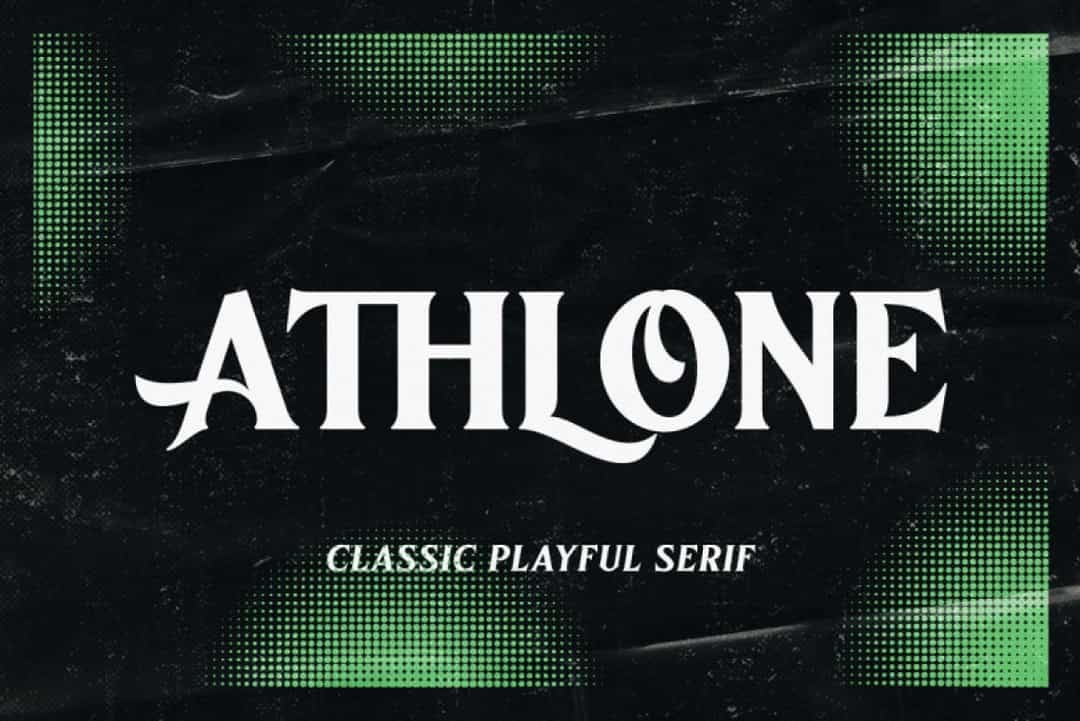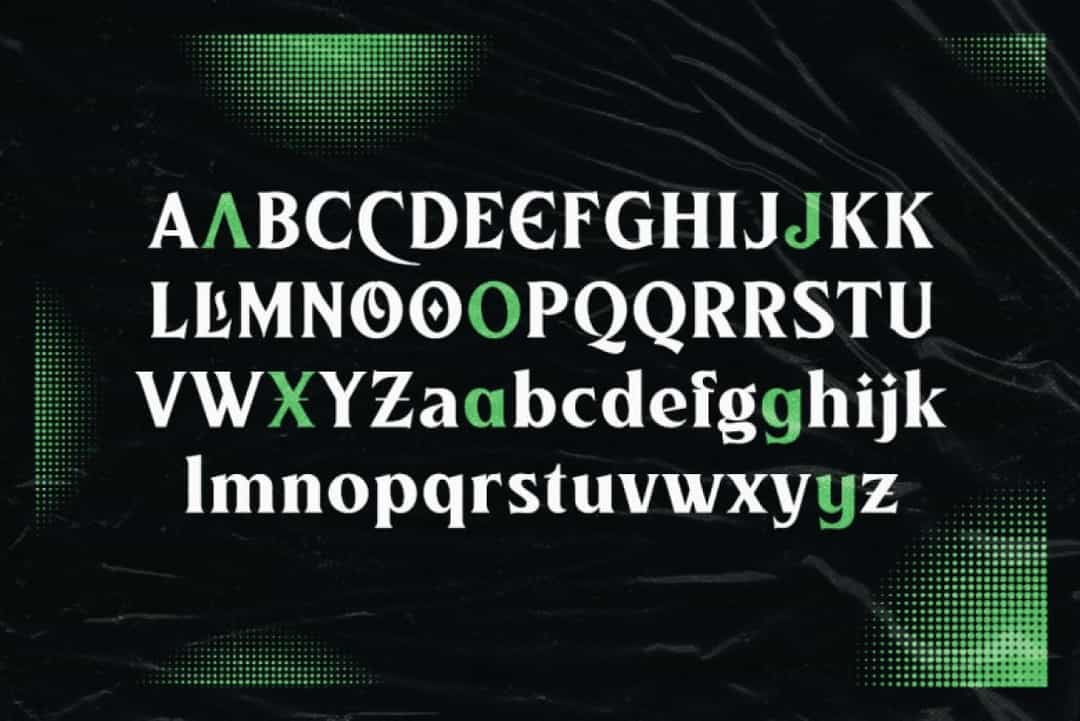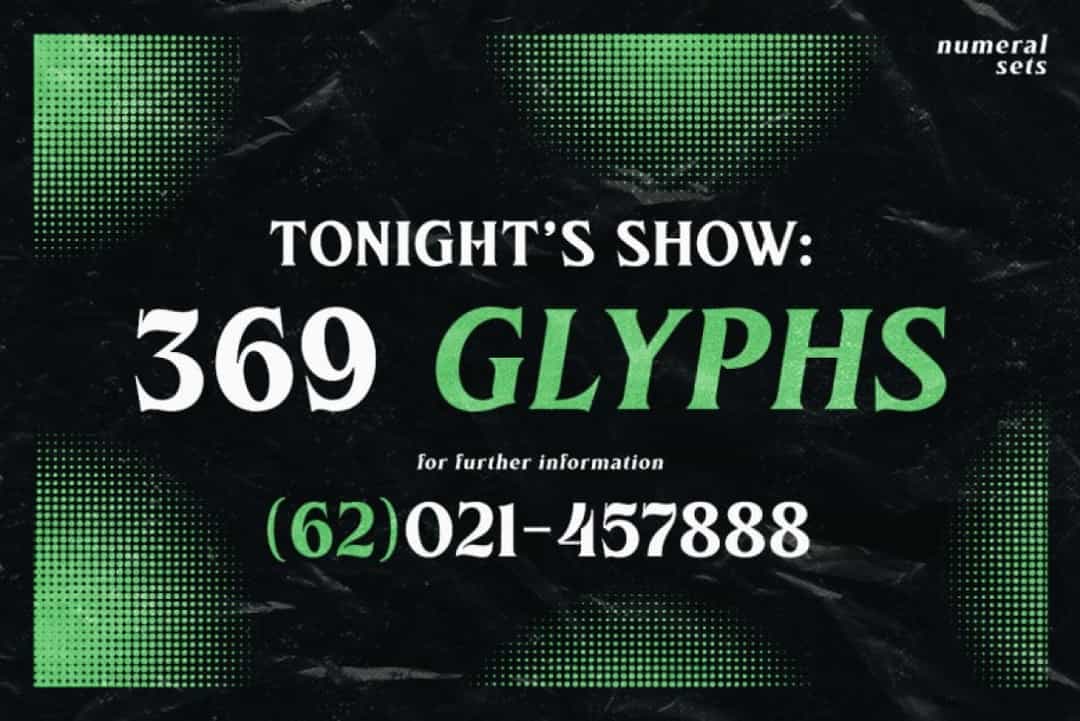
Athlone is a classic serif font inspired by vintage letterforms. Mouse-designed with careful consideration paid to every detail: clean lines, sharp edges and captivating curves are emphasized while its versatility offers multiple options for playback – making Athlone an excellent choice for title, headline, logotype designs, packaging, label designs etc.